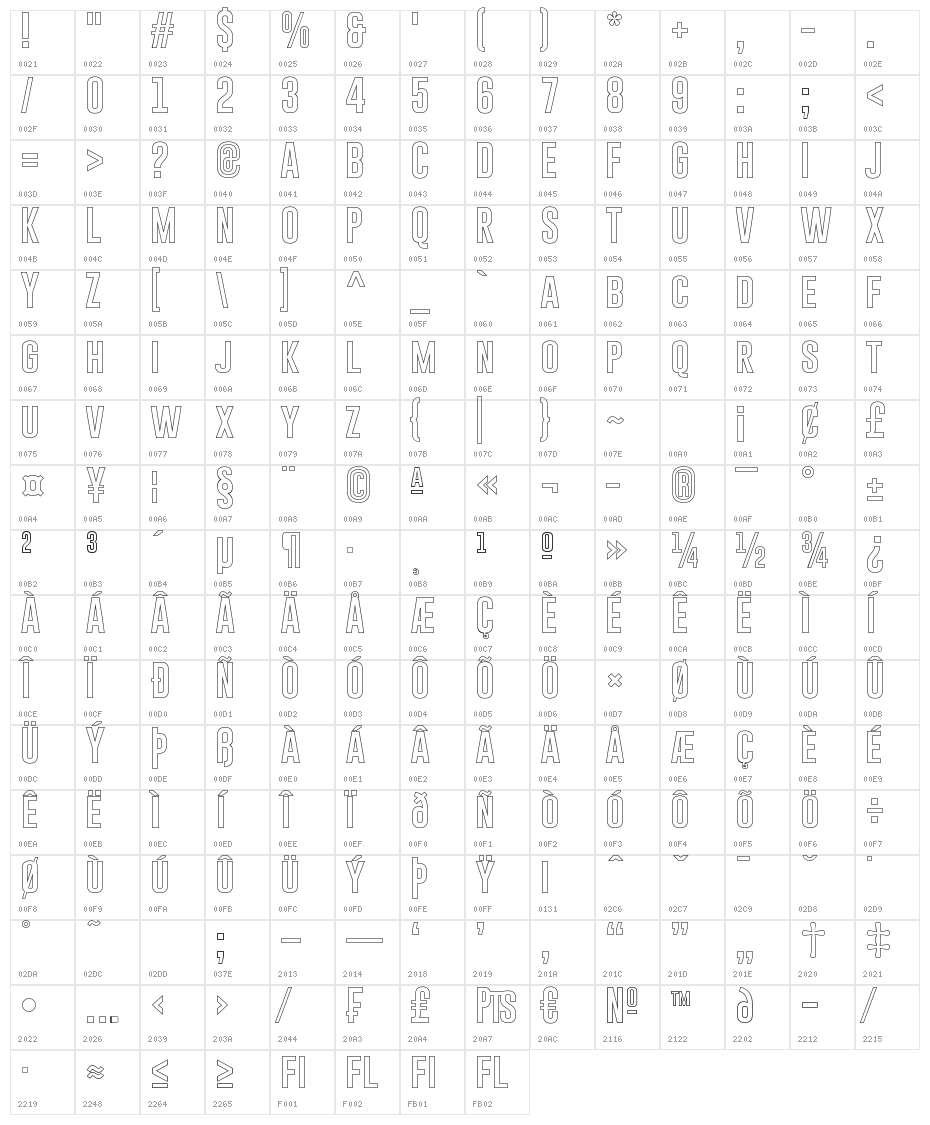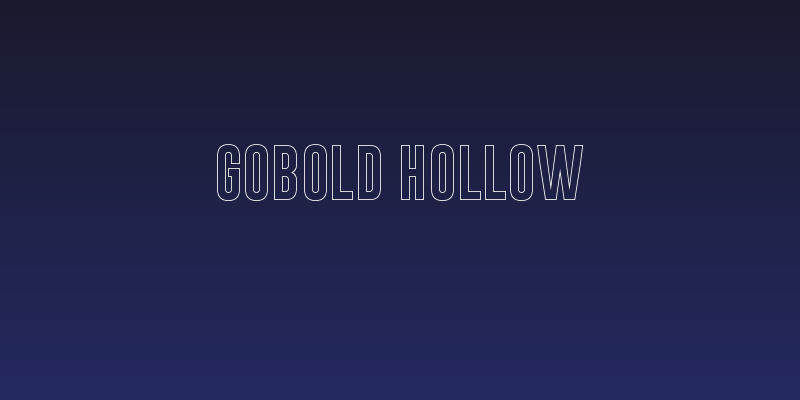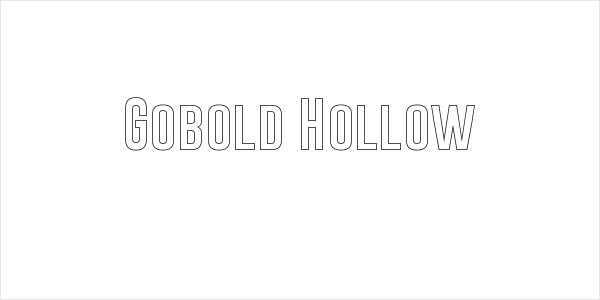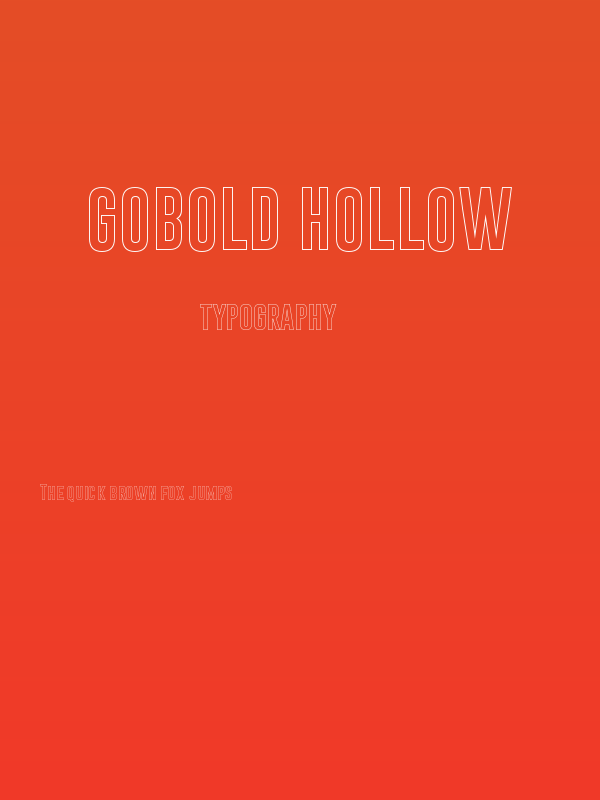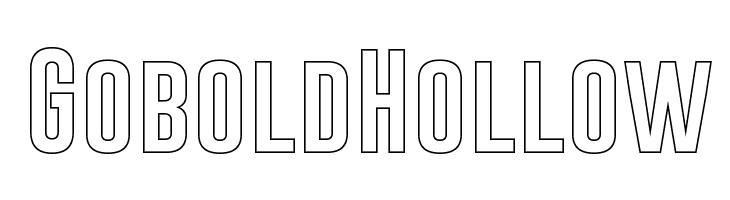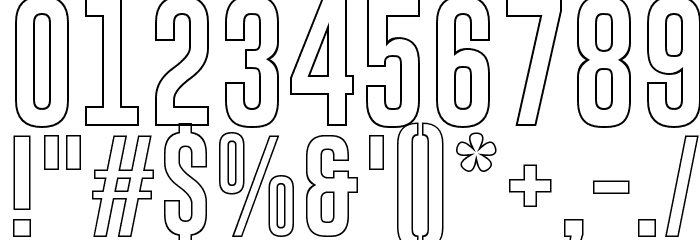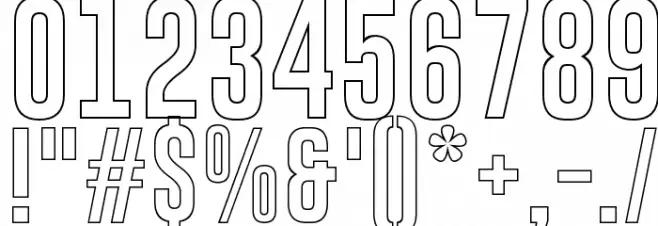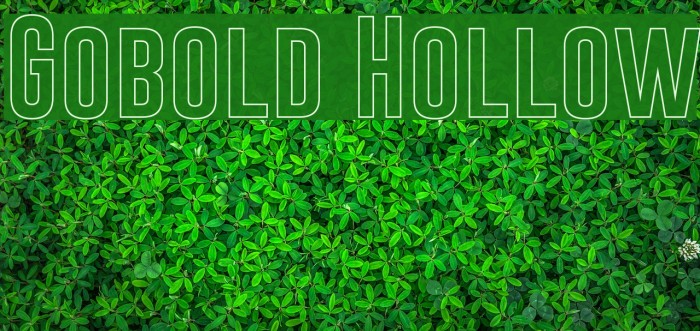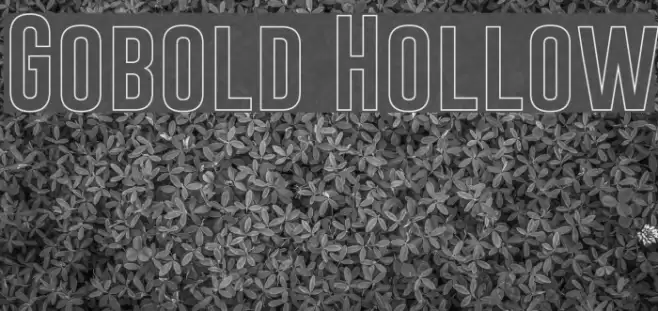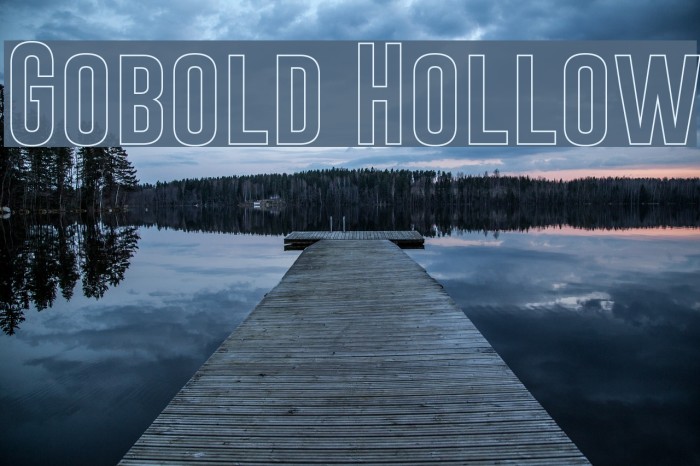
Gobold Hollow Font
Gobold Hollow Description
This font features a bold, hollow design that emphasizes its geometric structure. The uppercase and lowercase letters are consistent in style, with clean lines and a modern aesthetic. The numbers and special characters maintain the same hollow effect, providing a cohesive look across all characters. The font's design is striking and eye-catching, making it ideal for projects that require a strong visual impact. Its hollow nature allows for creative uses, such as overlaying on images or backgrounds, where the interior space can be filled with textures or colors. The font's overall appearance is both contemporary and versatile, suitable for a variety of design applications.
| Proposed Projects | Ideal for posters, logos, headlines, and branding materials where a strong visual presence is needed. |